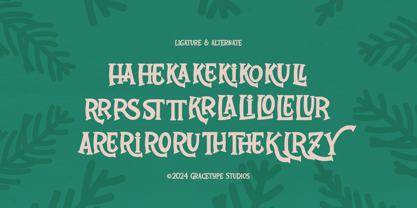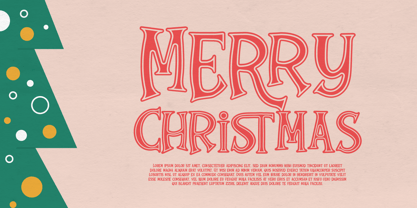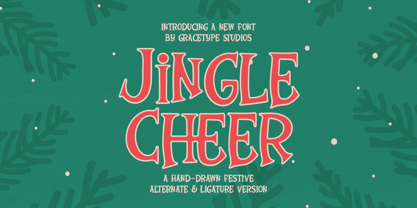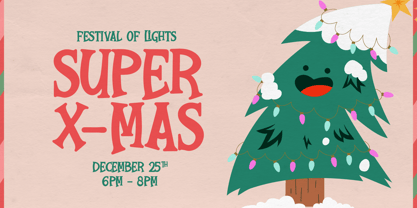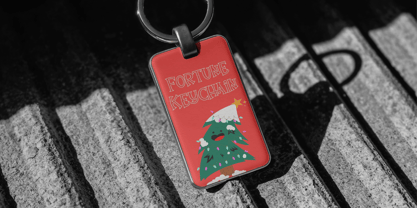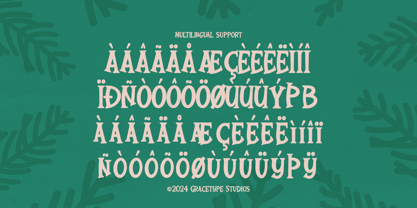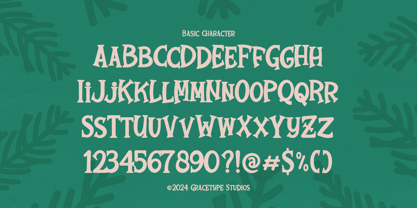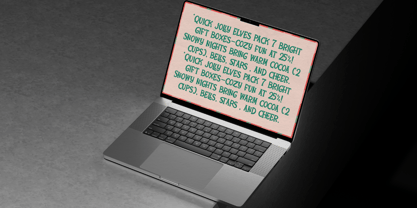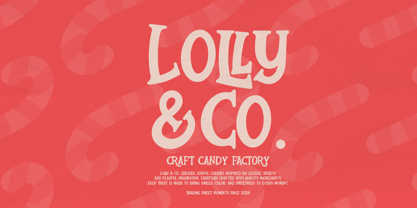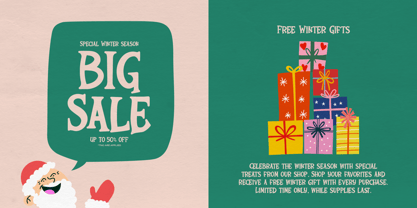
Jingle Cheer
Jingle Cheer | Hand Drawn Festive, from Gracetypestudio, suitable for any projects such as: logos, branding projects, homeware designs, product packaging, mugs, quotes, posters, shopping bags, t-shirts, book covers, name card, invitation cards, greeting cards, label, photography, watermark, special events, and all your other lovely projects that need a Hand Drawn taste.